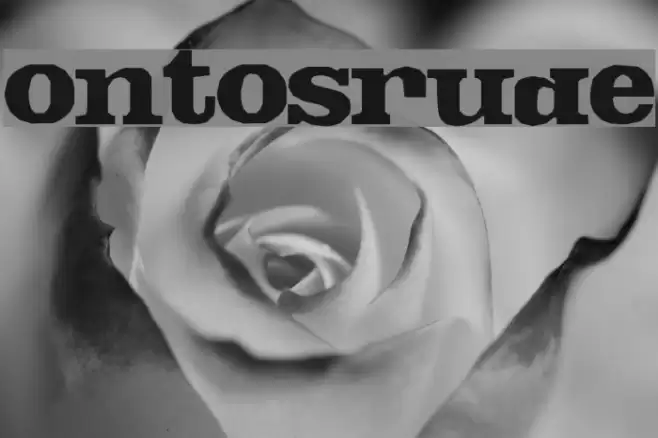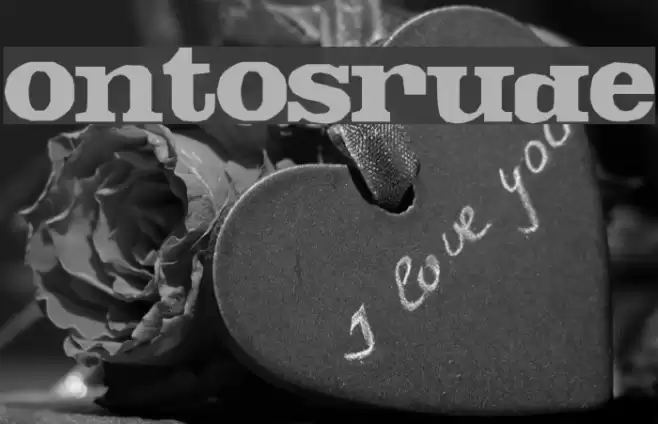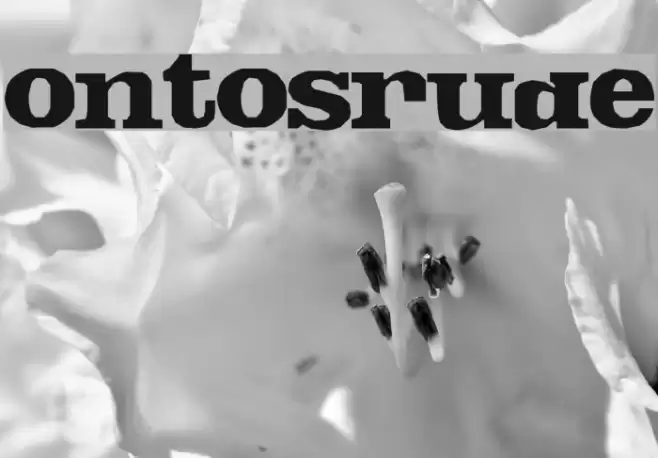
FontosCrude Font
FontosCrude Description
This font features a bold and robust design with thick, heavy strokes that give it a strong presence. The characters exhibit a slab serif style, characterized by thick, block-like serifs that add to its sturdy appearance. The lowercase letters have a unique, slightly condensed form, while the uppercase letters maintain a consistent height and width, providing a balanced look. The overall style is reminiscent of vintage typefaces, making it suitable for projects that require a classic yet impactful aesthetic. The font's high contrast between thick and thin strokes enhances its readability and visual appeal, making it ideal for headlines and display purposes.
A bold slab serif font with high contrast and a vintage style from Decorative fonts.
- Proposed Projects: This font is perfect for branding, poster design, and editorial headlines where a strong, classic look is desired.
- Overall Style: Vintage